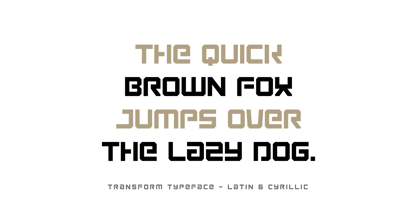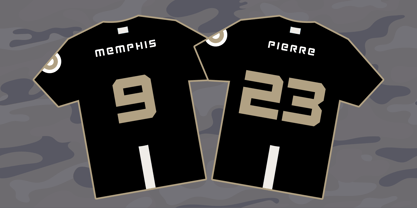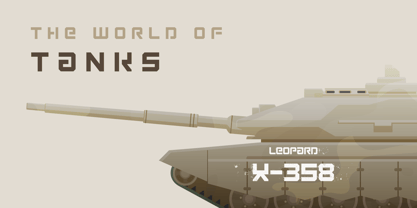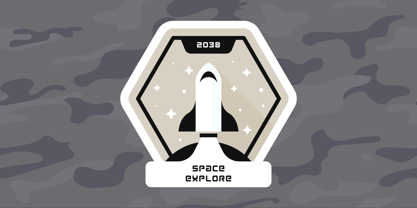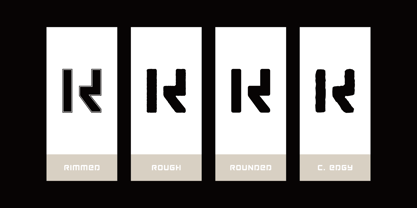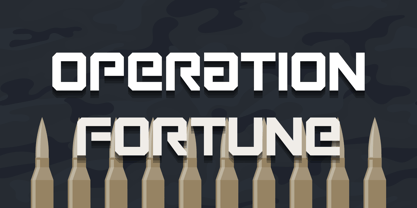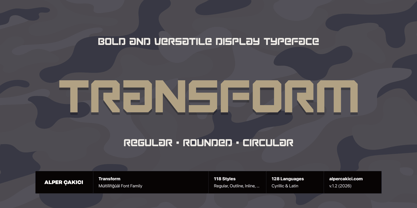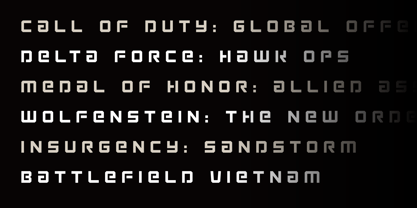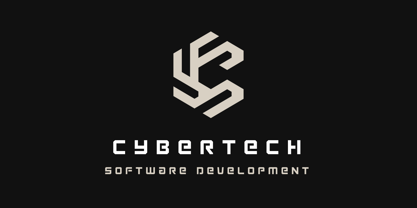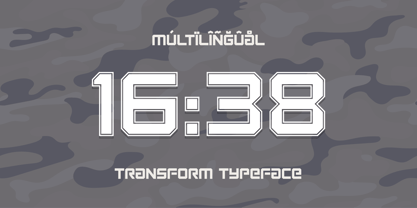
Transform
by AlperCakici
The Transform Font Family was designed by Alper Çakıcı and published by AlperCakici. Transform contains 118 styles and family package options. More about this family
Transform is a bold and versatile display typeface built on a square, blocky structure with a distinctive half-stencil character. Designed for impact, it blends industrial strength with creative flexibility, making it ideal for branding, posters, headlines, packaging, and editorial use. With support for both Cyrillic and Latin scripts, Transform ensures wide multilingual coverage while maintaining a consistent, strong visual voice. Its geometric construction gives it a modern, structured feel, while the half-stencil cuts introduce rhythm and uniqueness without sacrificing readability. The family includes an extensive range of 118 styles, from clean and regular cuts to expressive variations such as aged, brush, chalk, grainy, gritty, hazy, sketchy, rusty, and worn. Additional circular and rounded versions expand its usability, offering softer alternatives while preserving the core identity. Italics across many styles add further dynamism and flexibility. Whether you need something clean and technical or rough and textured, Transform adapts effortlessly—making it a powerful all-in-one type system for designers seeking consistency with creative range.
Designers: Alper Çakıcı
Foundry: AlperCakici